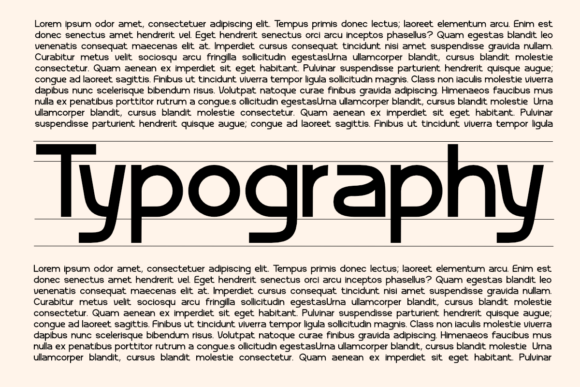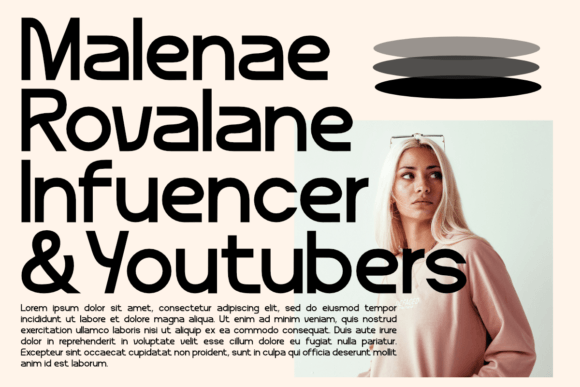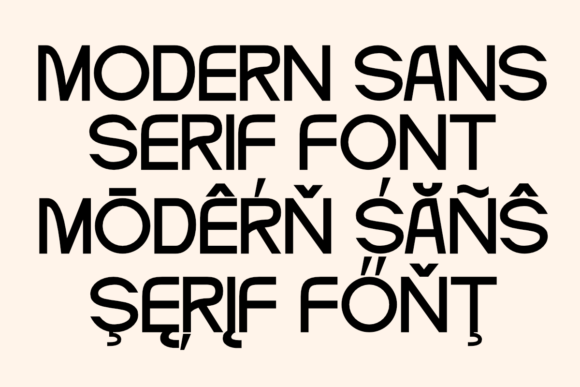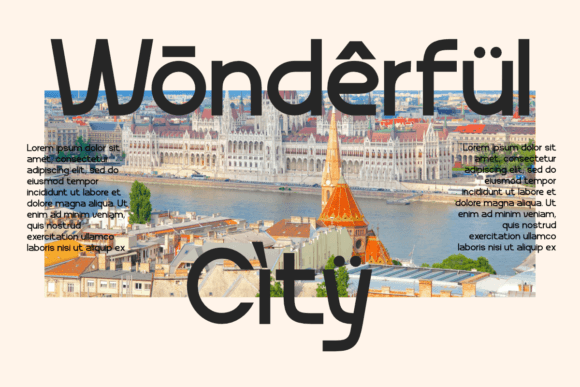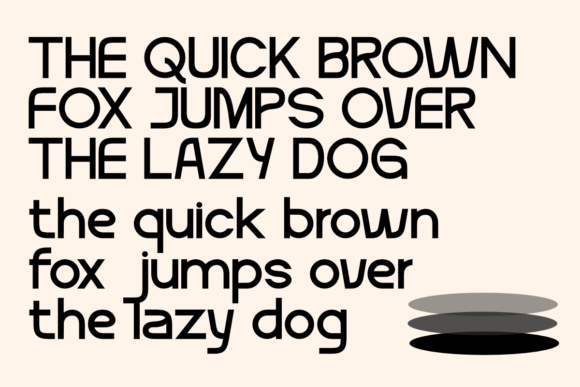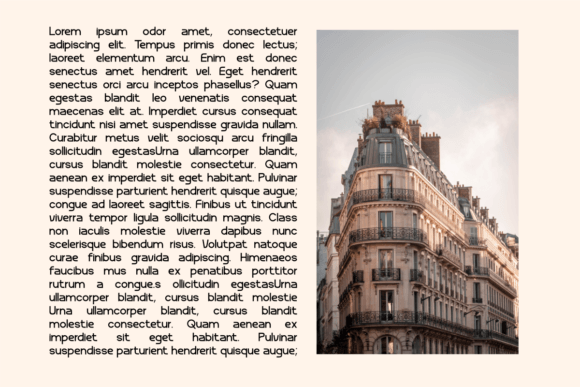
Unlocking the Future of Typography: The Power of Formatek Font
Have you ever stared at a blank design canvas, overwhelmed by the endless possibilities and unsure of where to start? For many creatives, this is a familiar moment – the spark that ignites a new project, a fresh idea, or a bold new direction. It’s in these moments that the right font can make all the difference, elevating your design from ordinary to extraordinary.
Enter Formatek Font, a modern geometric font designed to deliver a futuristic and technical look. With its clean, sharp letterforms and balanced proportions, Formatek is the perfect choice for designers seeking a modern, minimal, and professional aesthetic. Whether you’re crafting a logo, designing a poster, or building a digital interface, Formatek Font is the key to unlocking an innovative and cutting-edge impression.
Formatek Font Key Features
- Unique Characteristics: Unique letterforms, precise stroke widths, and high-quality digital rendering
Designer Review: Formatek Font
Overall, I was pretty impressed with Formatek Font. Here’s a rundown of what worked well and where it fell short.
- Clean Lines**: Formatek Font has clean lines and a modern feel, making it perfect for corporate or tech-related projects.
- Highly Legible**: The font is highly legible, even at small font sizes, which is a must-have for digital projects.
- Neutral**: The font’s neutral style makes it versatile and easy to pair with other fonts.
- Lack of Expressiveness**: Formatek Font feels a bit flat and lacks the expressiveness that some designers might be looking for.
- No Unique Personality**: The font doesn’t have a unique personality that sets it apart from other sans-serif fonts.
- Not Ideal for Creative Projects**: While it’s great for corporate projects, Formatek Font might not be the best choice for creative or artistic projects.
Overall, I’d give Formatek Font 3.5 out of 5 stars. It’s a solid choice for digital projects that require a clean and modern look, but it might not be the best fit for designers looking for a font with more personality or expressiveness.
Formatek Font is ideal for use in modern designs, such as:
Corporate branding
Marketing materials
Product packaging
To get the most out of Formatek Font, use it in combination with bold and italic styles to add emphasis and hierarchy to your text.
Alternatives to Formatek Font
Montserrat is a sans-serif typeface designed by Julieta Ulanovsky. It is ideal for digital and print media, particularly for headings and titles. Montserrat is more geometric and clean compared to Formatek Font, making it perfect for modern and minimalist designs.
Avenir is a geometric sans-serif typeface designed by Adrian Frutiger. It is suitable for various applications, including magazines, newspapers, and corporate identity. Avenir is more elegant and refined than Formatek Font, making it ideal for high-end and luxury brands.
Inter is a sans-serif typeface designed by Office for Coast. It is designed for digital use and is ideal for body text and paragraphs. Inter is more legible and readable than Formatek Font, making it perfect for long-form content and websites.
Open Sans is a sans-serif typeface designed by Steve Matteson. It is suitable for digital and print media, particularly for body text and paragraphs. Open Sans is more versatile and neutral compared to Formatek Font, making it ideal for various applications and industries.
Creative Projects with Formatek Font
Project 1: Digital Art Book
Create a visually striking digital art book featuring Formatek Font as the primary font. The font’s unique geometric shapes and bold lines will add an edgy touch to your artwork.
Q: Does Formatek Font support Unicode characters?
Yes, Formatek Font supports Unicode characters up to Unicode 14.0. This means that you can use the font to typeset text in multiple languages, including languages that use non-Latin scripts such as Cyrillic, Greek, and Chinese.